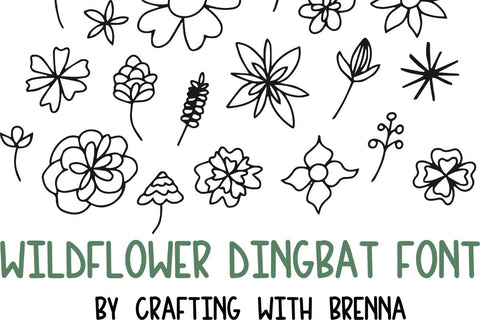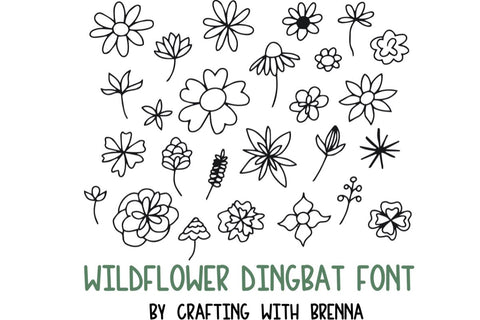
Wildflower Dingbat Font
This font will be perfect for all your Craft projects! Use it to make custom shirts, keychains, valentines, tags, bags, and whatever else you can think of!